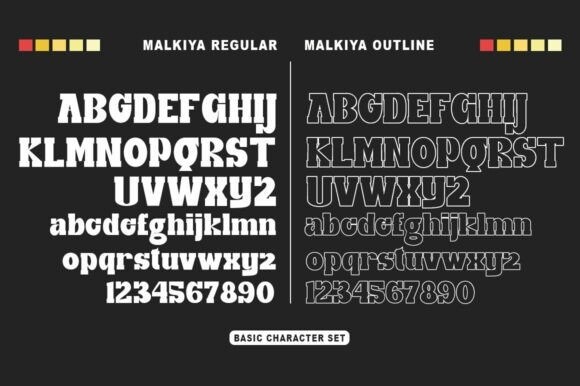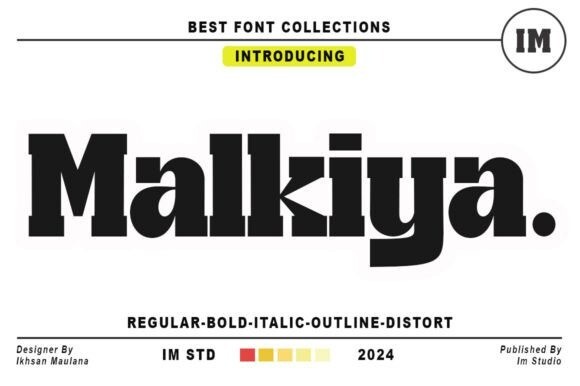
Malkiya Font
Malkiya Font, an incredibly elegant typeface that graces canvases large and small with stunning beauty. An indispensable tool for creating captivating titles and logos, Malkiya infuses every design with nostalgic charm. Reveal the timeless appeal of this classic typeface in your content, bringing an unmatched sense of sophistication and elegance throughout your projects. From appearance to text content, Malkiya is your ticket to the aesthetic domain that transforms ordinary designs into extraordinary works of art.